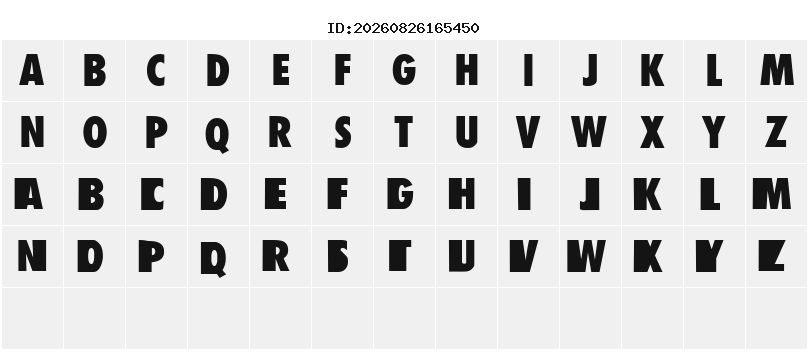
• Font Name: wATCHMEn
• Designer: SpideRaY
About wATCHMEn.ttf
wATCHMEn.ttf is a modern, elegant sans-serif font designed for ultimate readability and visual harmony. Perfect for branding, headlines, web design, and print materials.